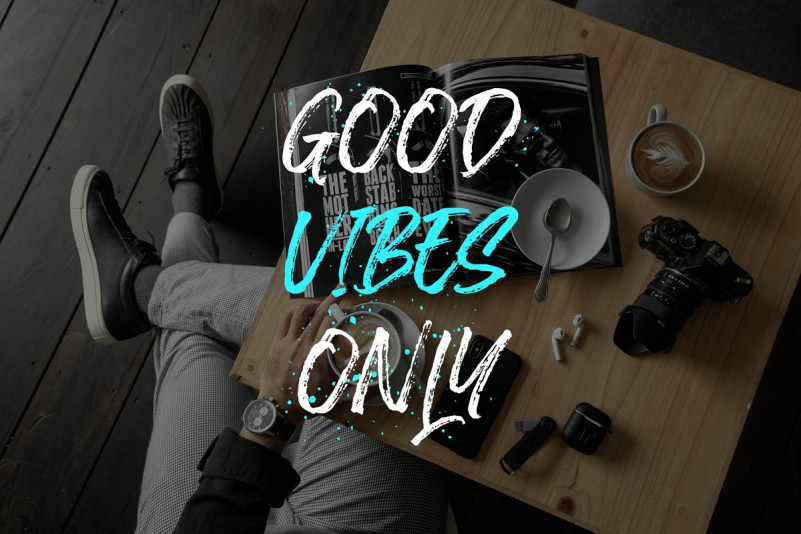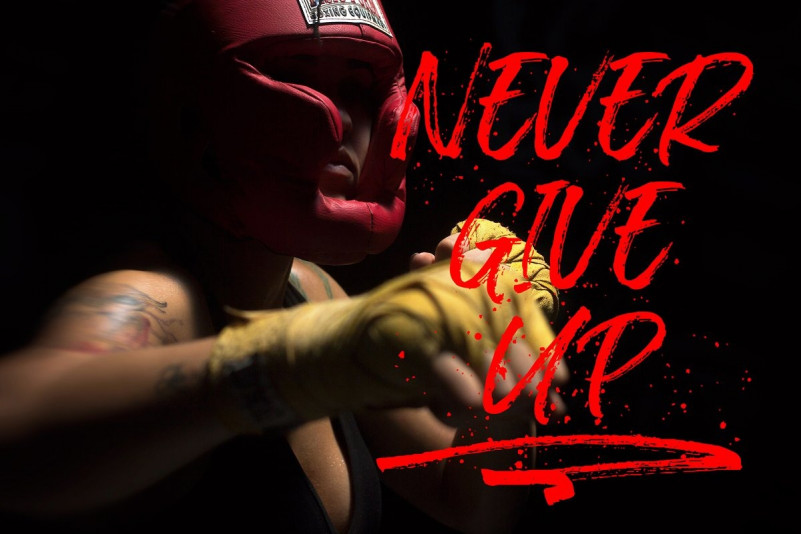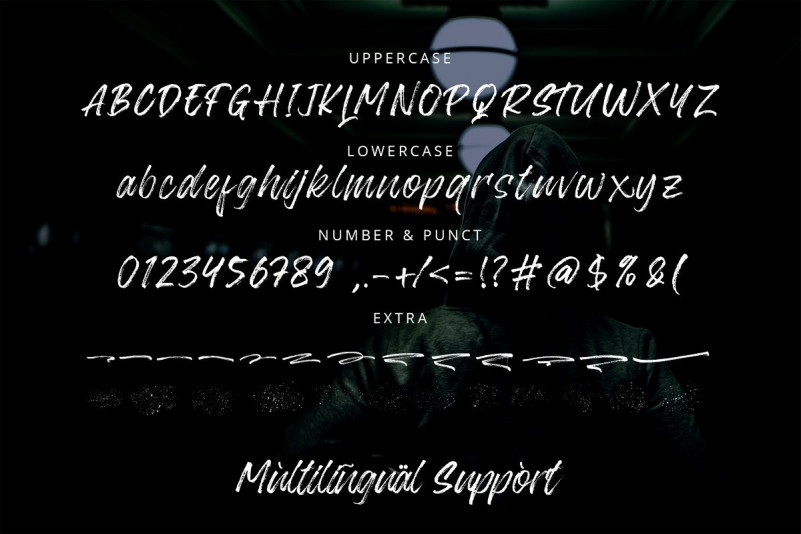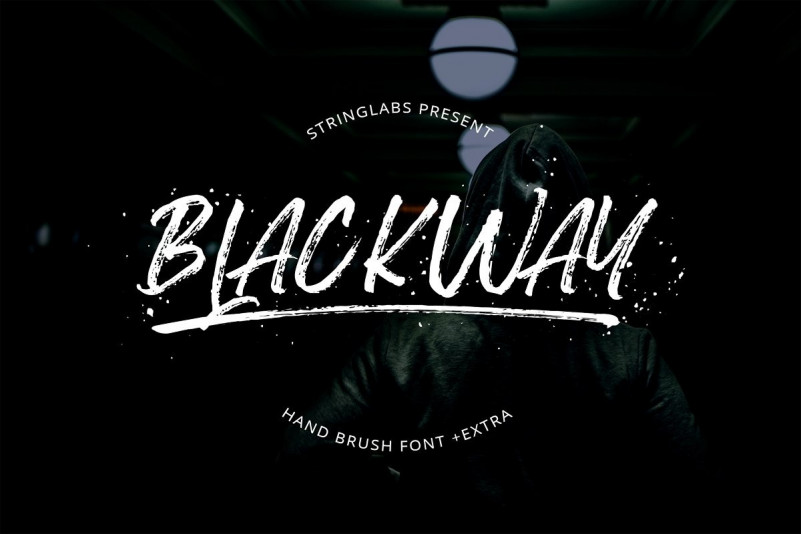
Blackway Brush Font
Thank you for looking Blackway Font. This is a hand brush products with extras. The style of handwriting and irregular but still elegant, and you will enjoy to use this font style. This Font can be used for any variety of purposes. With swash and regular style, Blackway Brush is perfect for photography, watermark, social media posts, advertisements, logos & branding, invitation, product designs, label, stationery, wedding designs, product packaging, special events or anything that need handwriting taste.